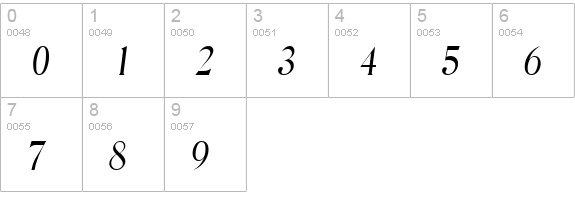
Blue Ridge Light SF Italic is a refined, elegant, italic variant in the Blue typeface family \xE2\x80\x94 well suited to elegant body text, refined sub-headings, and luxury branding.
Blue Ridge Light SF Italic is a sophisticated and modern typeface that exudes elegance and style. Its sleek italic design adds a touch of contemporary flair to any project, making it perfect for both professional and creative use. The delicate curves and precise lines of this font give it a refined and polished look that will elevate your designs to new heights. What makes Blue Ridge Light SF Italic even more appealing is the fact that it is available for free download at FontsMarket.com. This means that you can easily access this stunning font and use it in your projects without any cost. Whether you're working on a website, a branding project, or a print design, Blue Ridge Light SF Italic is sure to impress with its clean and sophisticated appearance. With its timeless style and modern appeal, Blue Ridge Light SF Italic is a must-have font for anyone looking to add a touch of class to their designs. Download it for free today and see the difference it can make in your projects!